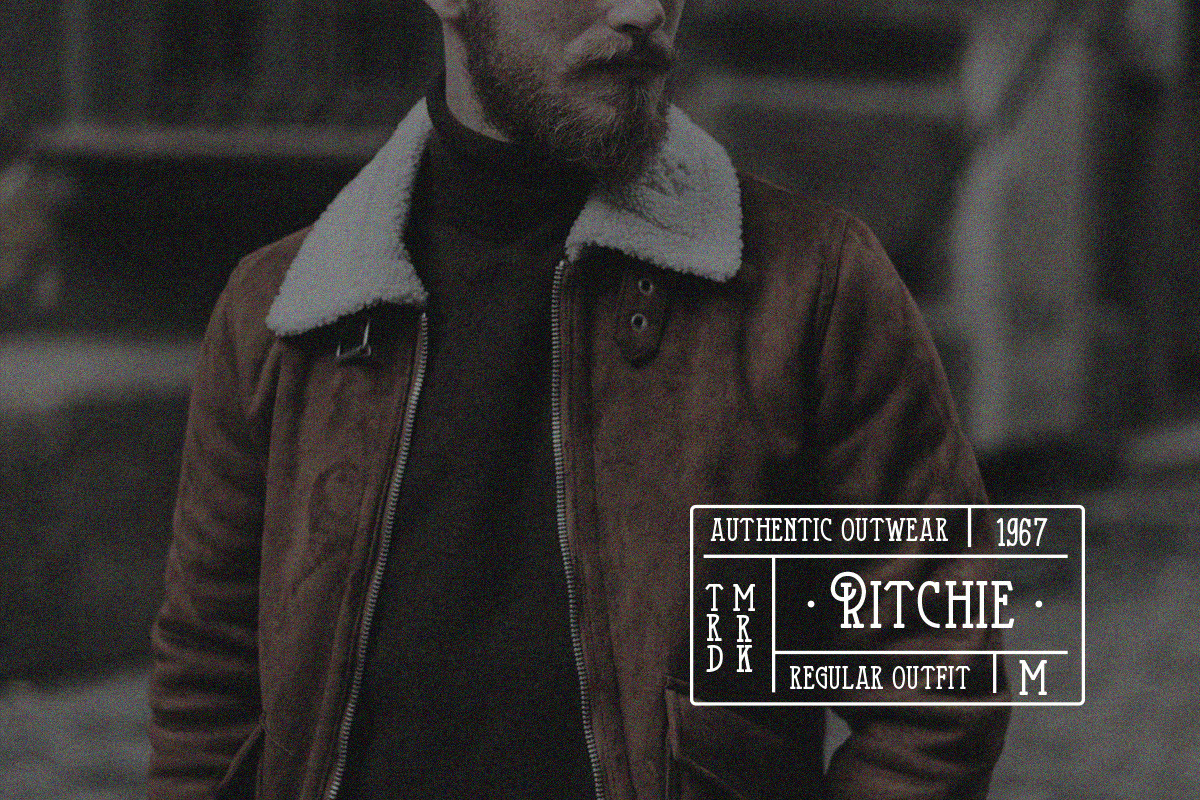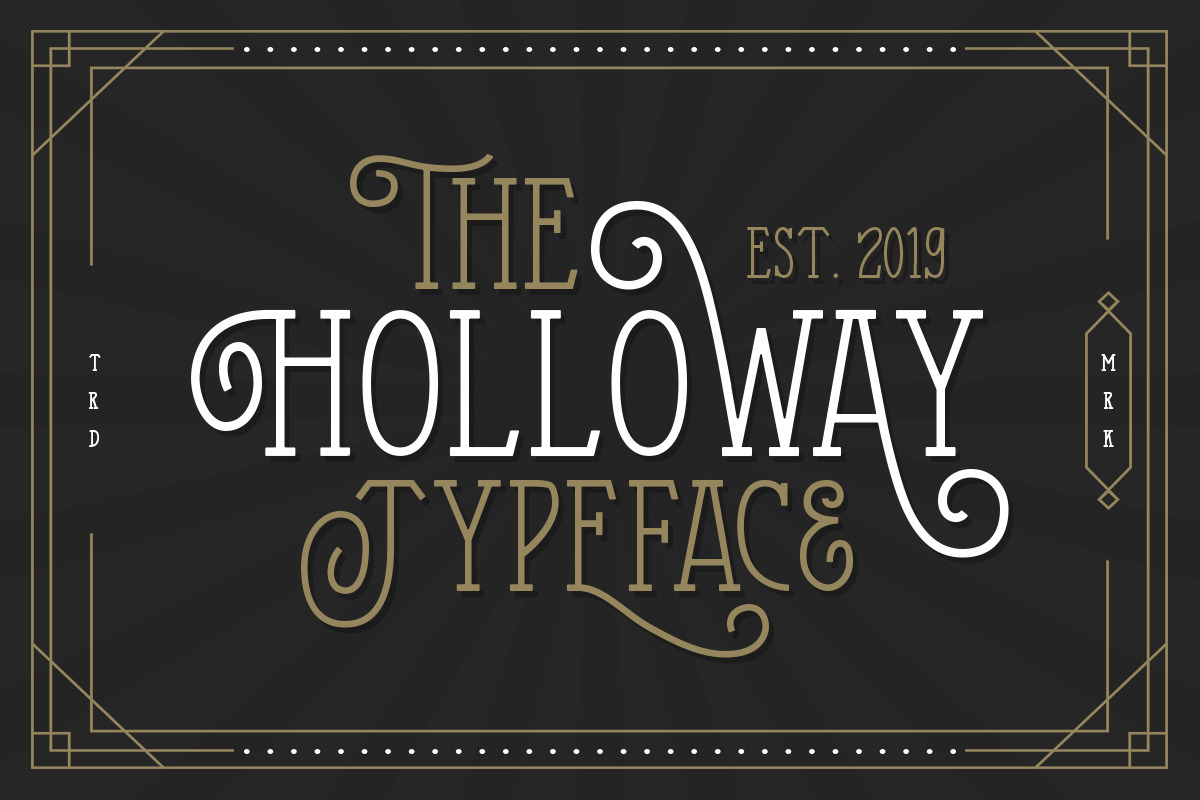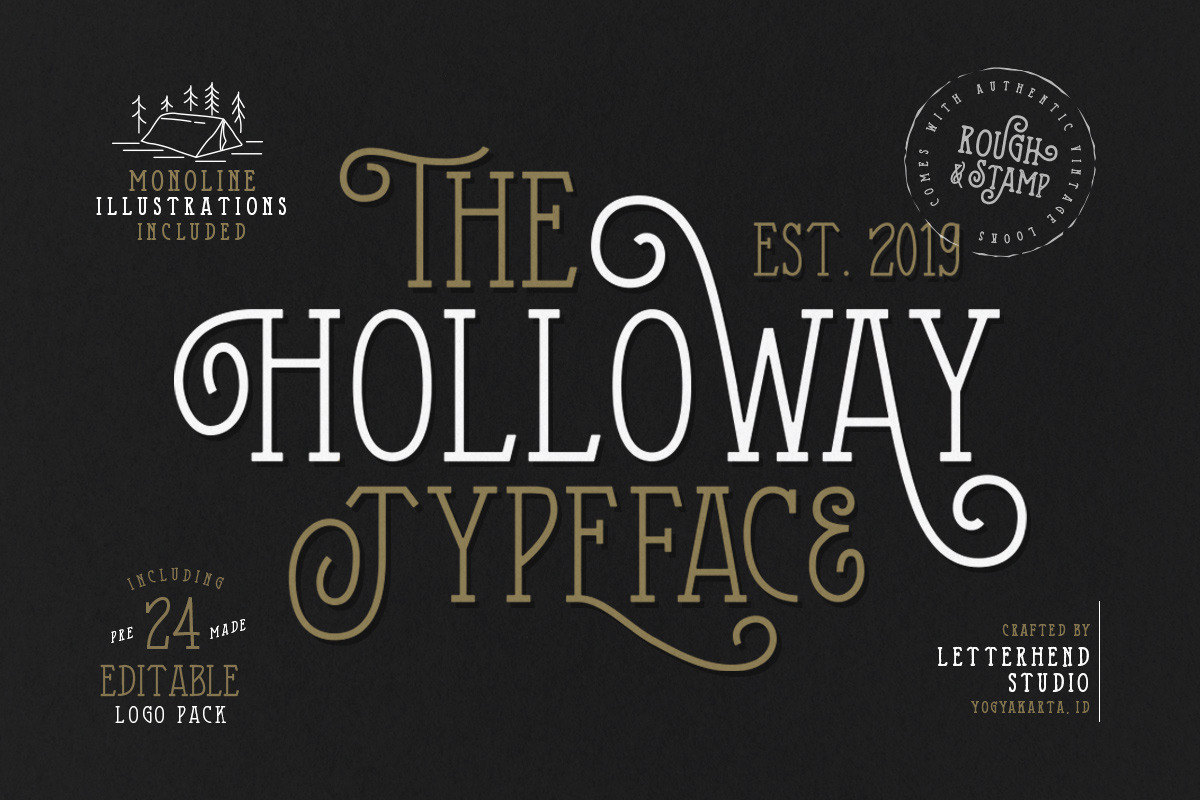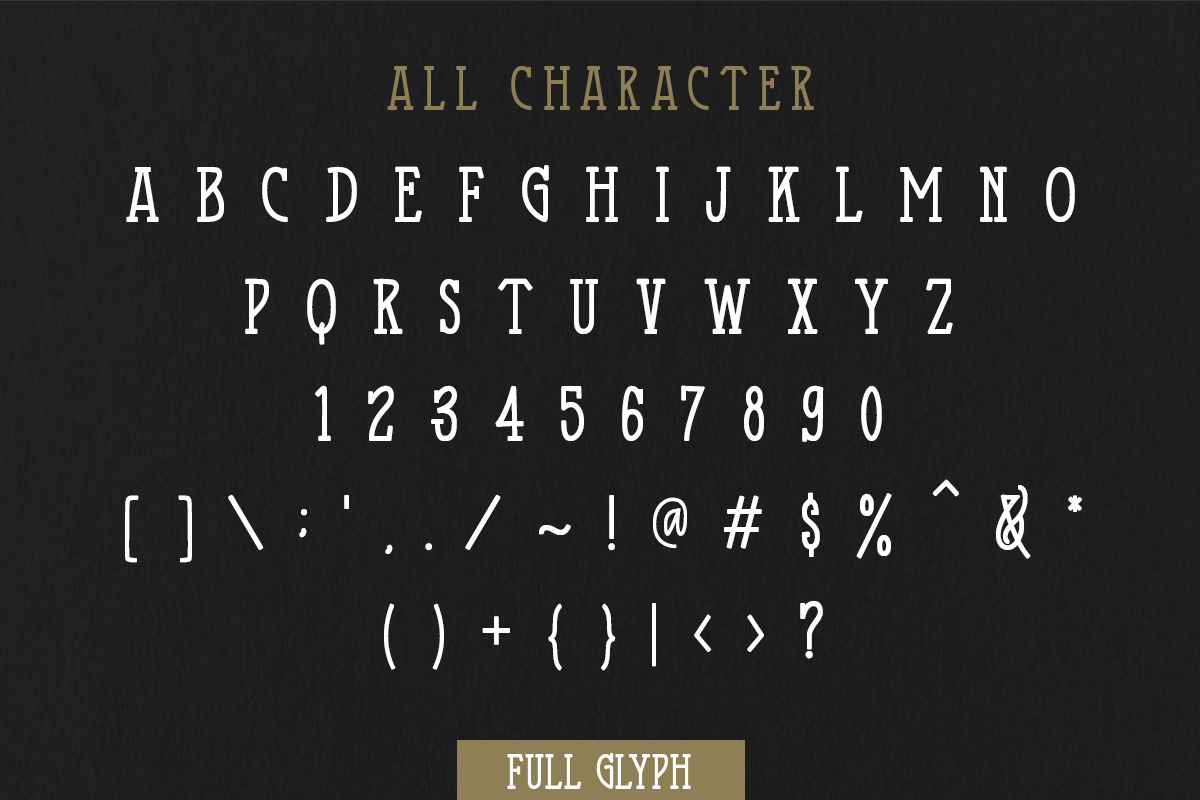
The Holloway Typeface + EXTRAS
Say hi to Holloway Typeface! We're back with one of a kind product that will fulfill your needs for your design project, branding, apparel, etc. Holloway typeface is a unique monoline serif font that have swashes as the main feature. Just play around and see for yourself! This typeface is include a set of logopack and monoline illustrations which is perfectly paired with the typeface. Beside that, this typeface is comes in uppercase, lowercase, punctuations, symbols & numerals, 09 stylistic set alternate, ligatures, etc also support multilingual and already PUA encoded.